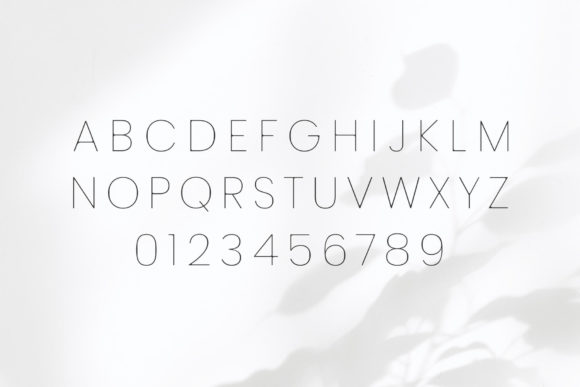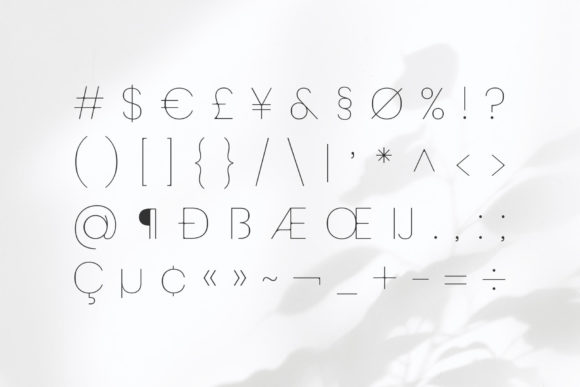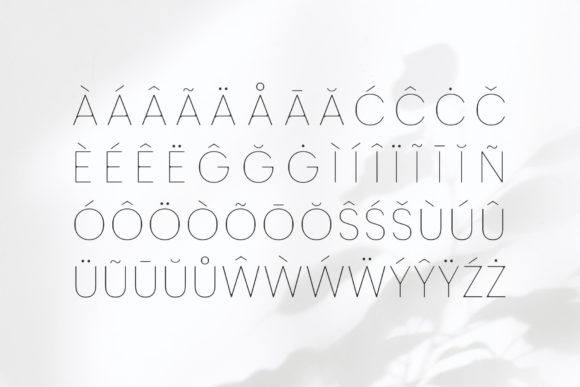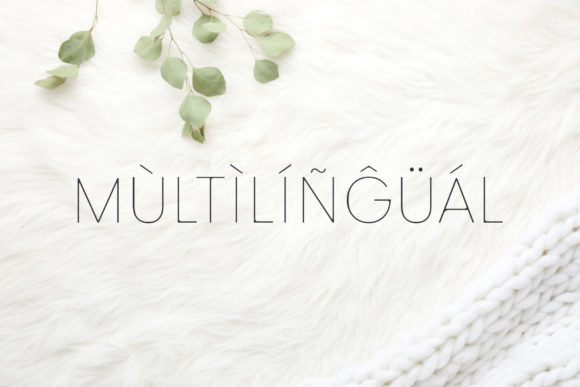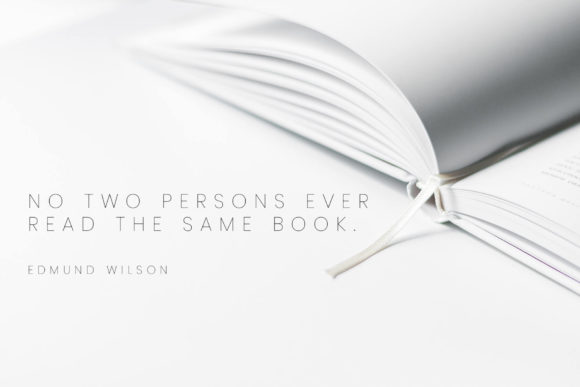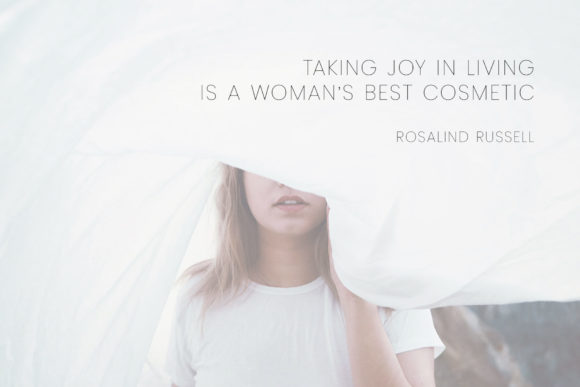
Introducing Desiras Font: The Epitome of Minimalistic Elegance
In the realm of typography, a font can make or break the visual appeal of a design. For designers and crafters seeking a typeface that exudes simplicity, sophistication, and versatility, Desiras Font is an exceptional choice. This stunning sans serif font has been crafted to transcend trends, offering a timeless quality that elevates layouts, headers, web designs, and numerous other contexts.
The Essence of Desiras Font
Desiras is more than just a font; it’s a design statement. Its minimalistic approach to typography doesn’t compromise on elegance or readability. Instead, it strikes a perfect balance, making it an ideal selection for projects where clarity and style are paramount. Whether you’re working on a sleek website, a modern logo, or a captivating poster, Desiras Font brings a level of refinement that’s hard to achieve with more ornate typefaces.
Key Features of Desiras Font
- Minimalistic Design: The clean lines and uncluttered design of Desiras make it perfect for contemporary designs that demand a fresh and modern look.
- Timeless Appeal: Unlike trendy fonts that may quickly become outdated, Desiras boasts a timeless quality. Its classic sans serif structure ensures it remains relevant across various design projects and over time.
- Versatility: Desiras Font shines in a multitude of applications. From digital platforms like websites and mobile apps to print materials such as brochures, posters, and business cards, it adapts seamlessly.
- High Readability: The carefully considered letterforms ensure that Desiras maintains high readability, even at smaller sizes. This makes it an excellent choice for body text as well as headlines.
Applications of Desiras Font
The versatility of Desiras Font is one of its most compelling attributes. Here are some of the areas where it truly excels:
- Web Design: For websites aiming for a clean and professional look, Desiras is an excellent choice. It works well in both headings and body text, ensuring a cohesive and elegant user experience.
- Graphic Design: Whether you’re creating logos, branding materials, or marketing collateral, Desiras brings a level of sophistication that’s sure to impress.
- Digital Media: For digital content creators, Desiras can enhance the visual appeal of social media graphics, presentations, and digital magazines.
- Crafting and DIY Projects: For crafters and those working on DIY projects, Desiras can add a professional touch to handmade goods, packaging, and instructional materials.
Why Choose Desiras Font?
In a sea of typefaces, Desiras stands out for several reasons:
- Customization: Despite its simplicity, Desiras offers enough character to allow for creative freedom. Its clear structure makes it an excellent base for customizations and manipulations.
Desiras Font is a testament to the power of minimalistic design. Its clean lines, timeless appeal, and versatility make it an invaluable asset for designers and crafters looking to elevate their projects. Whether you’re working on a professional design or a personal crafting project, Desiras offers the perfect blend of form and function. Embrace the elegance and simplicity of Desiras Font, and watch your designs transform with a touch of sophistication and style.